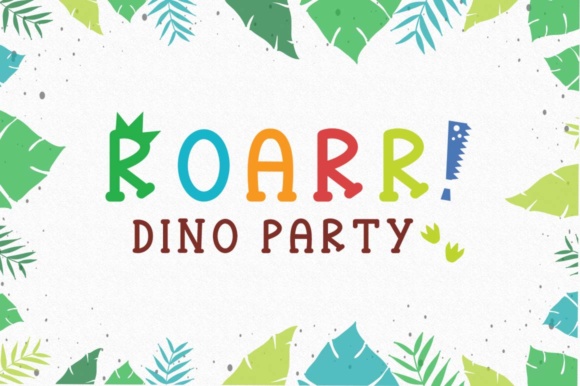
Roarr! Dino Party Font: The Ultimate Choice for Themed Party Decorations
Are you looking for a unique and fun font to make your themed party decorations stand out? Look no further than the Roarr! Dino Party Font. This exciting font is perfect for creating invitations, customizing monograms, and adding a personal touch to your party decor. In this article, we’ll explore the features and benefits of the Roarr! Dino Party Font and how it can help you create unforgettable party experiences.
What is Roarr! Dino Party Font?
The Roarr! dino party font is a fun and playful font that features uppercase letters with dinosaur spikes. The font is designed to bring a touch of excitement and adventure to your party decorations. With its bold and eye-catching design, it’s perfect for creating themed party invitations, banners, and other decorations that will leave a lasting impression on your guests.
Key Features of Roarr! Dino Party Font
- Uppercase Letters Only: The Roarr! dino party font features uppercase letters only, making it perfect for creating bold and eye-catching headings and titles.
- Dinosaur Spikes: The letters in this font are adorned with dinosaur spikes, adding a fun and playful touch to your designs.
- Thematic Symbols: The font includes a range of thematic symbols, such as dinosaurs, to help you complete your designs and add a personal touch.
- Unique and Special: The Roarr! dino party font is a one-of-a-kind font that will help you stand out from the crowd and create unique and memorable party decorations.
Uses for Roarr! Dino Party Font
The Roarr! dino party font is incredibly versatile and can be used for a wide range of party decoration ideas. Here are some of the most popular uses for this exciting font:
- Invitations: Create custom party invitations that will set the tone for your themed party.
- Themed Party Decorations: Use the Roarr! dino party font to create custom banners, signs, and other decorations that will add a personal touch to your party.
- Customize Monograms: Add a personal touch to your party decorations with custom monograms featuring the Roarr! dino party font.
- Christmas and Holiday Decorations: The Roarr! dino party font is perfect for creating unique and special holiday decorations, such as custom Christmas cards and gift tags.
Why Choose Roarr! Dino Party Font?
With so many fonts to choose from, why should you choose the Roarr! dino party font? Here are just a few reasons why this font stands out from the crowd:
- Unique Design: The Roarr! dino party font features a unique and playful design that will add a touch of excitement to your party decorations.
- Versatility: The Roarr! dino party font can be used for a wide range of party decoration ideas, making it a great value for the price.
- Perfect for Kids’ Parties: The Roarr! dino party font is perfect for kids’ parties, with its fun and playful design that’s sure to delight kids of all ages.
Tips for Using Roarr! Dino Party Font
Here are a few tips for getting the most out of the Roarr! dino party font:
- Use it Sparingly: While the Roarr! dino party font is fun and playful, it can be overwhelming if used too much. Use it sparingly to add a touch of excitement to your party decorations.
- Pair it with Other Fonts: The Roarr! dino party font pairs well with other fonts, such as sans-serif fonts. Experiment with different font combinations to find the perfect look for your party decorations.
- Experiment with Colors: The Roarr! dino party font looks great in a range of colors, from bright and bold to pastel and subtle. Experiment with different colors to find the perfect look for your party decorations.
The Roarr! dino party font is a fun and playful font that’s perfect for creating themed party decorations. With its unique design, ease of use, and versatility, it’s a great choice for anyone looking to add a personal touch to their party decor. Whether you’re planning a kids’ party, a Christmas party, or just a fun gathering with friends, the Roarr! dino party font is sure to delight. So why wait? Download the Roarr! dino party font today and start creating unforgettable party experiences!